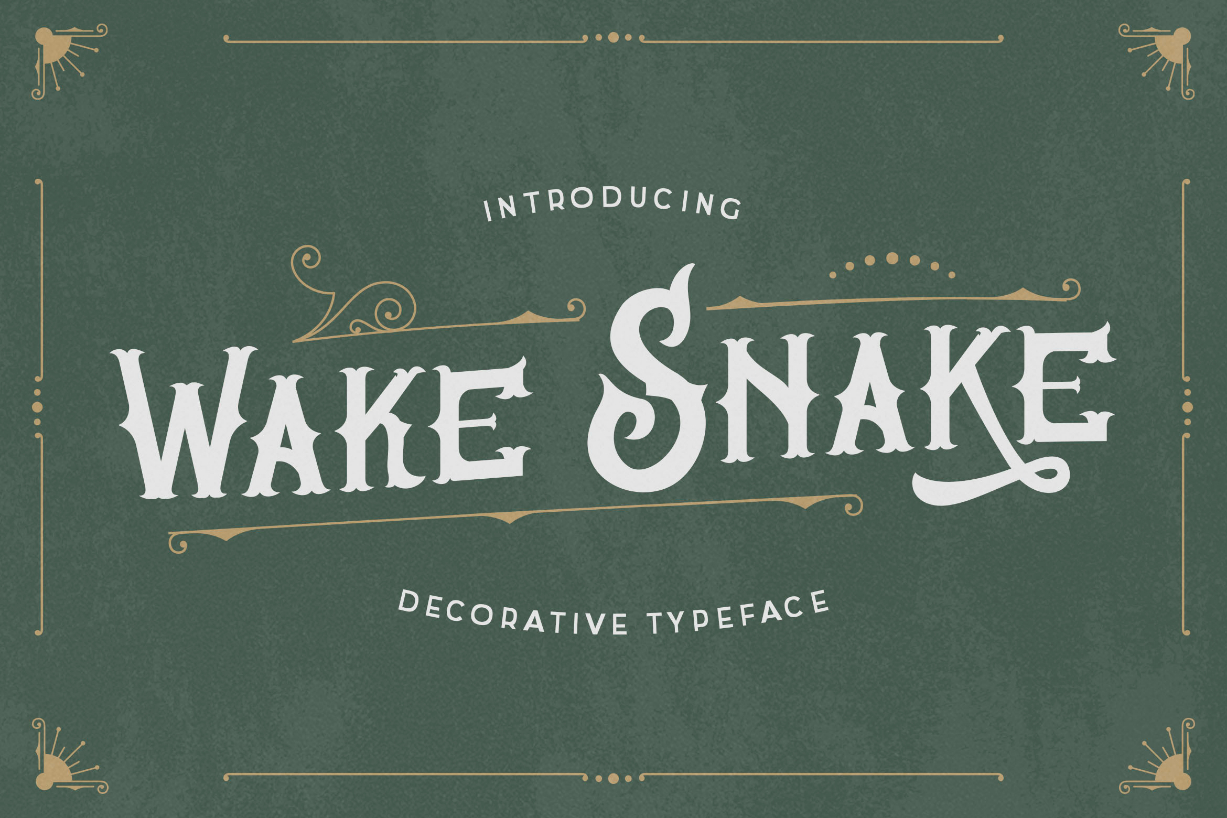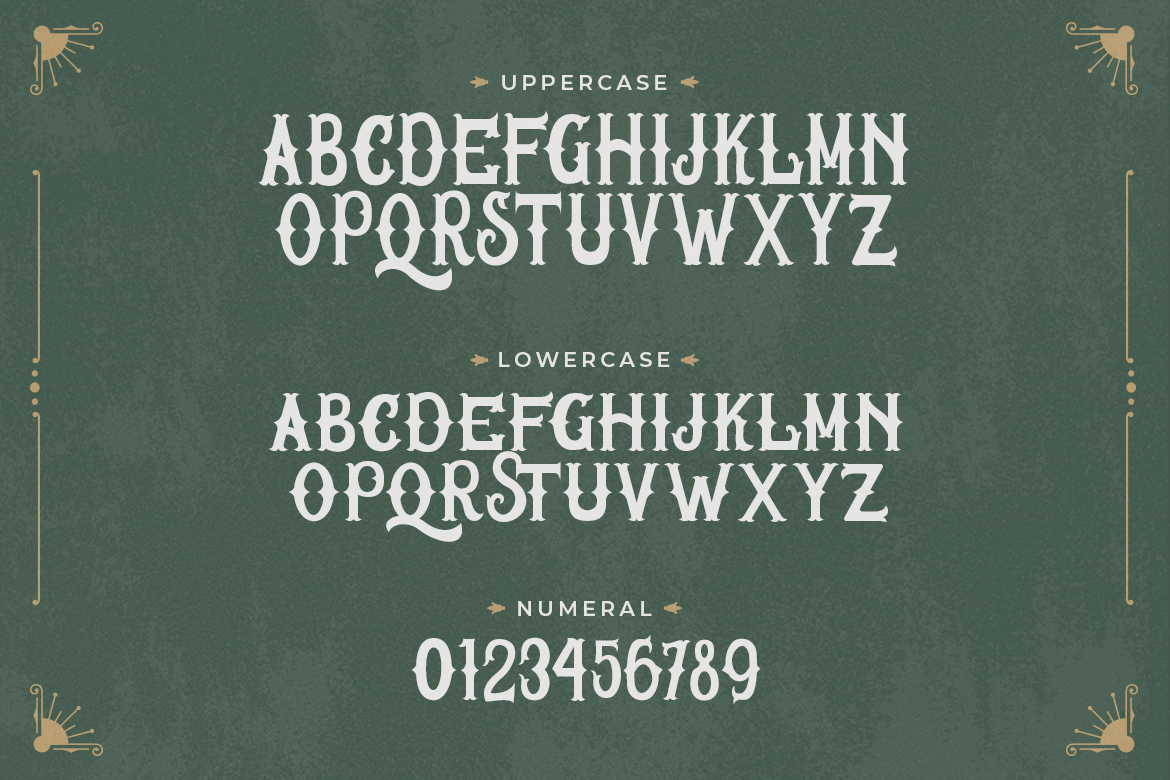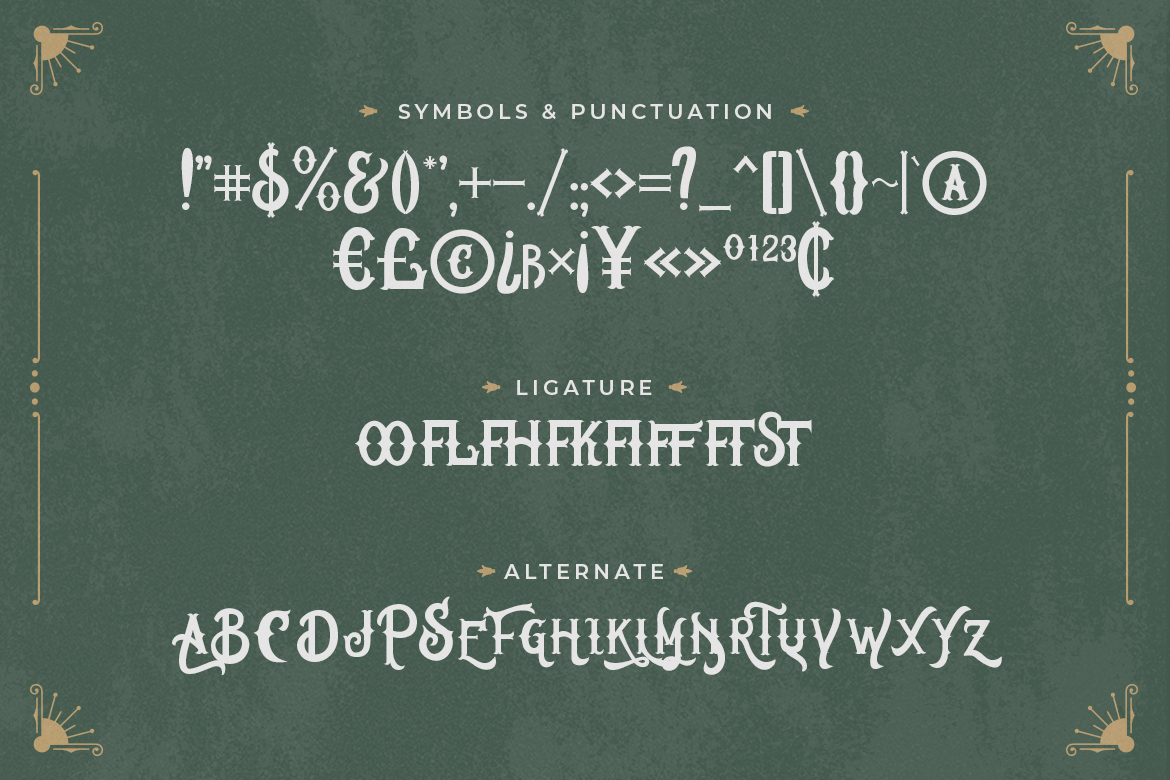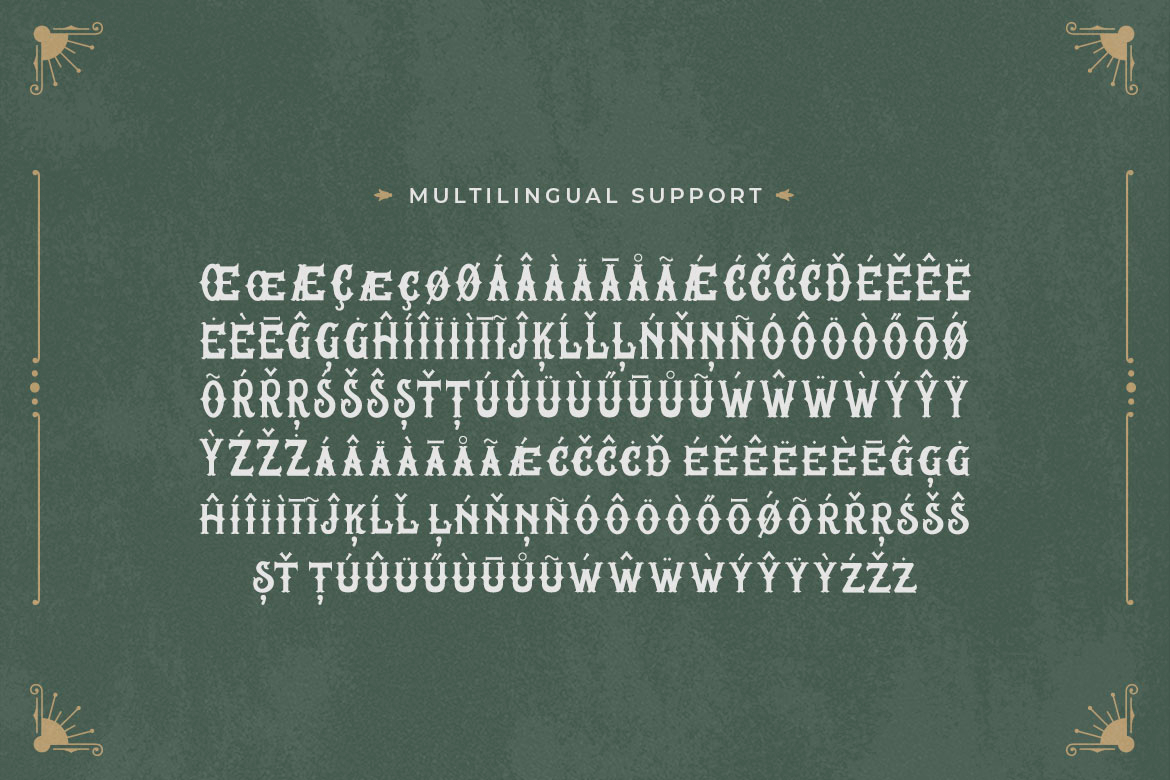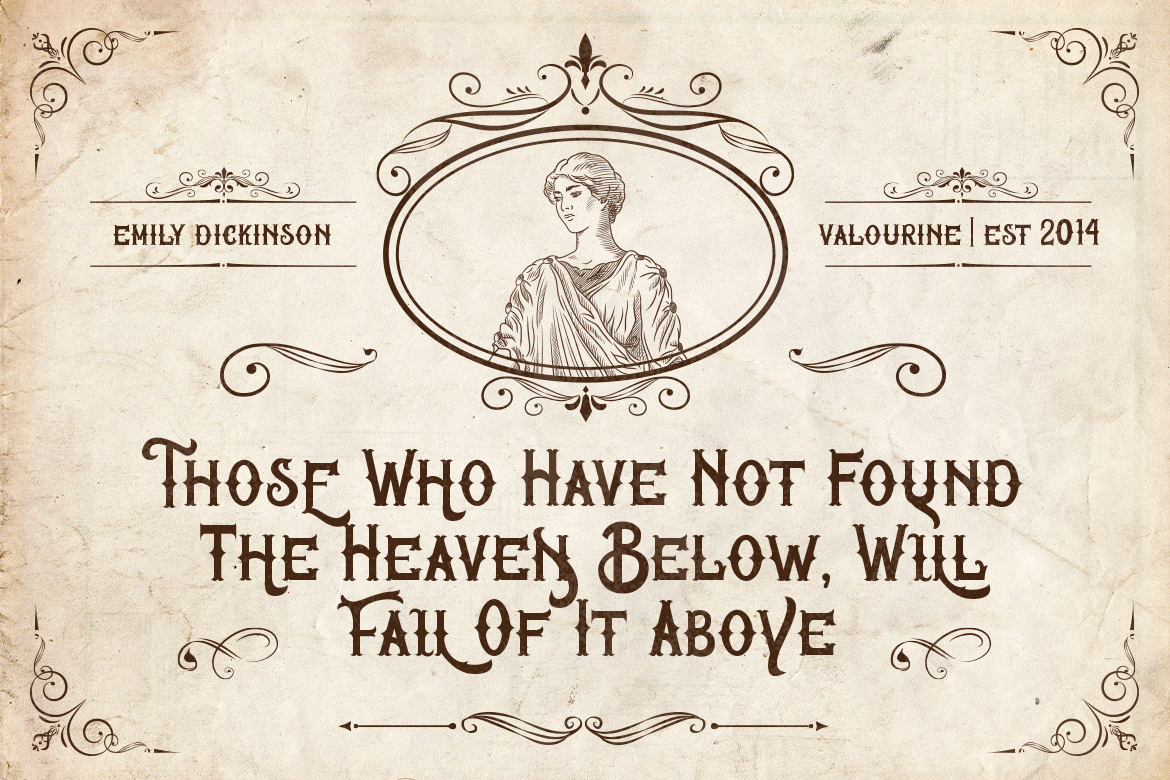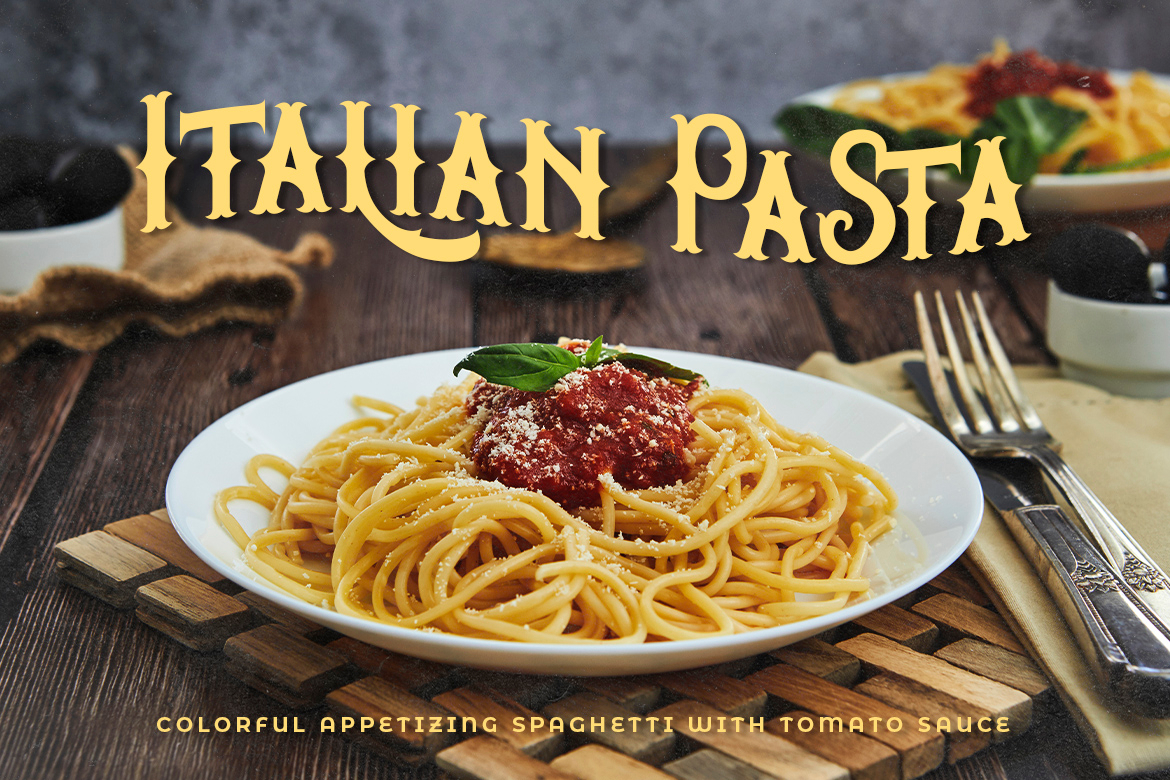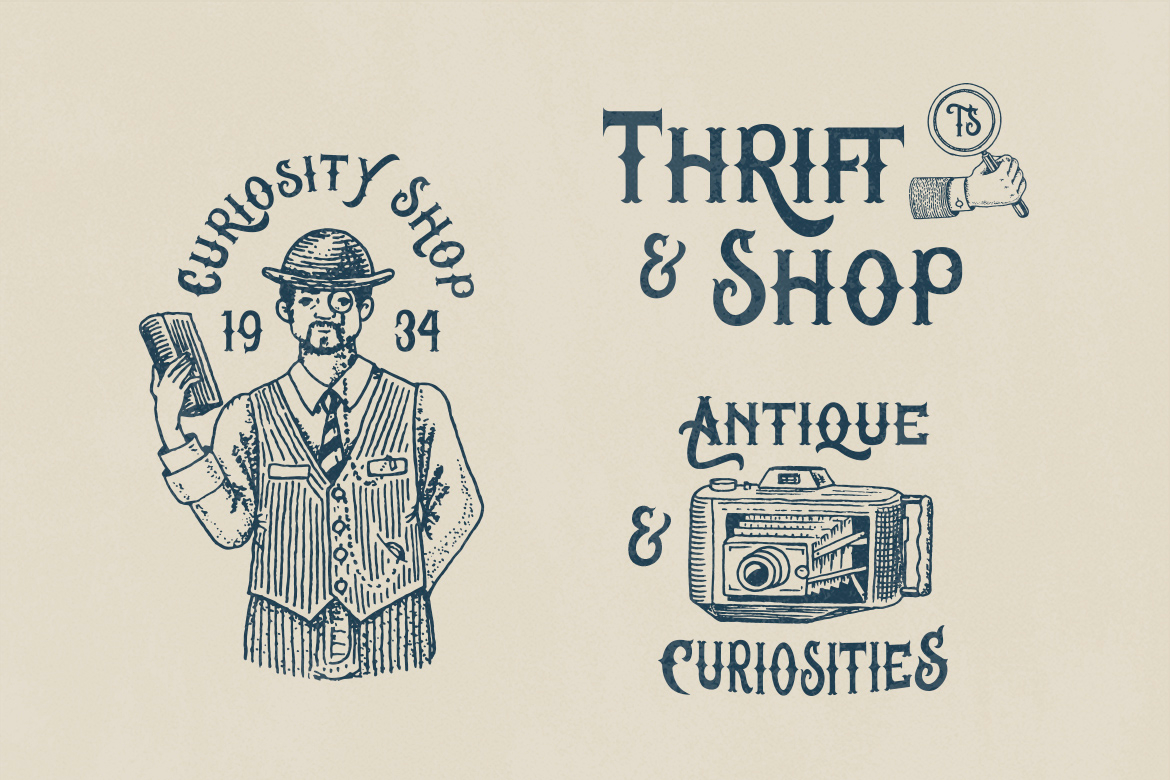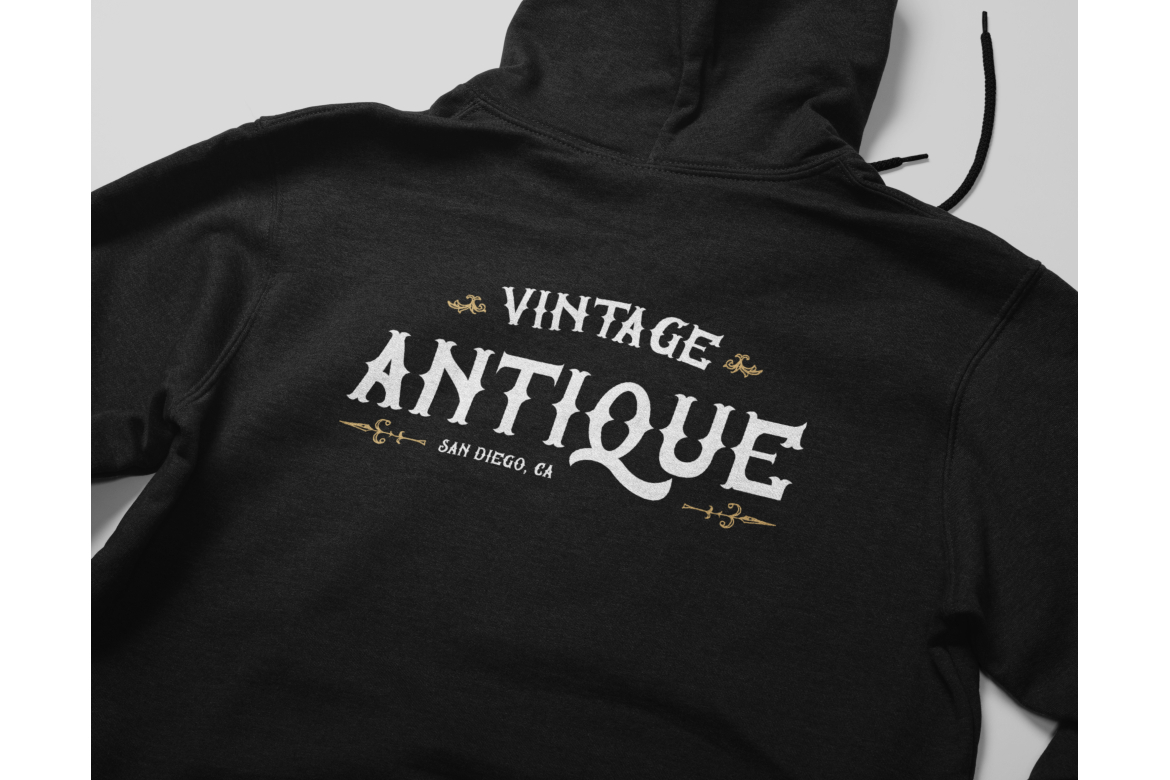
Wake Snake Font
About Wake Snake Font
Wake Snake is a beautiful blackletter font capable of handling a ton of project types and designs.
This vintage, Victorian inspired font is ideal for giving your projects a classy and nostalgic feel.